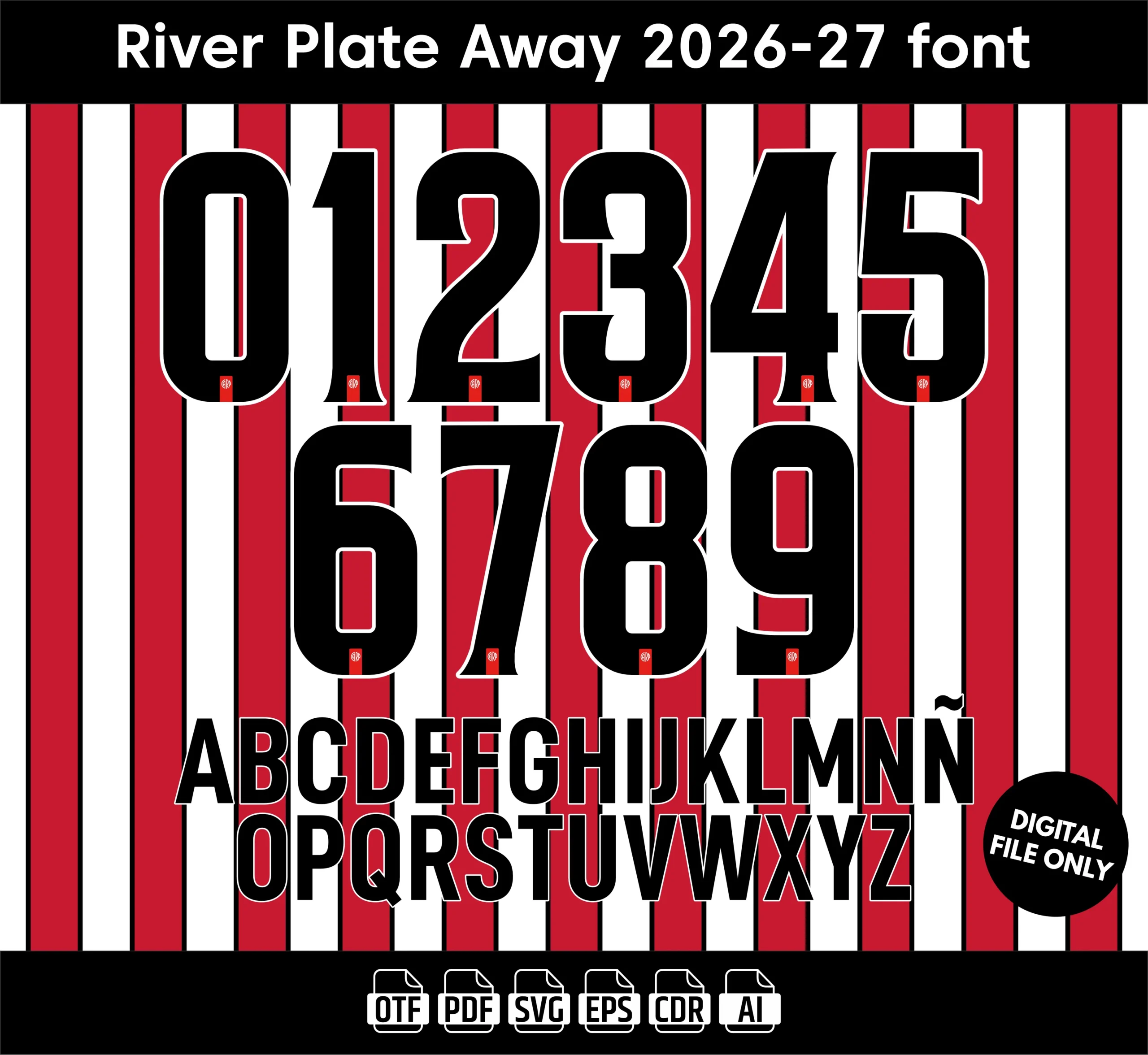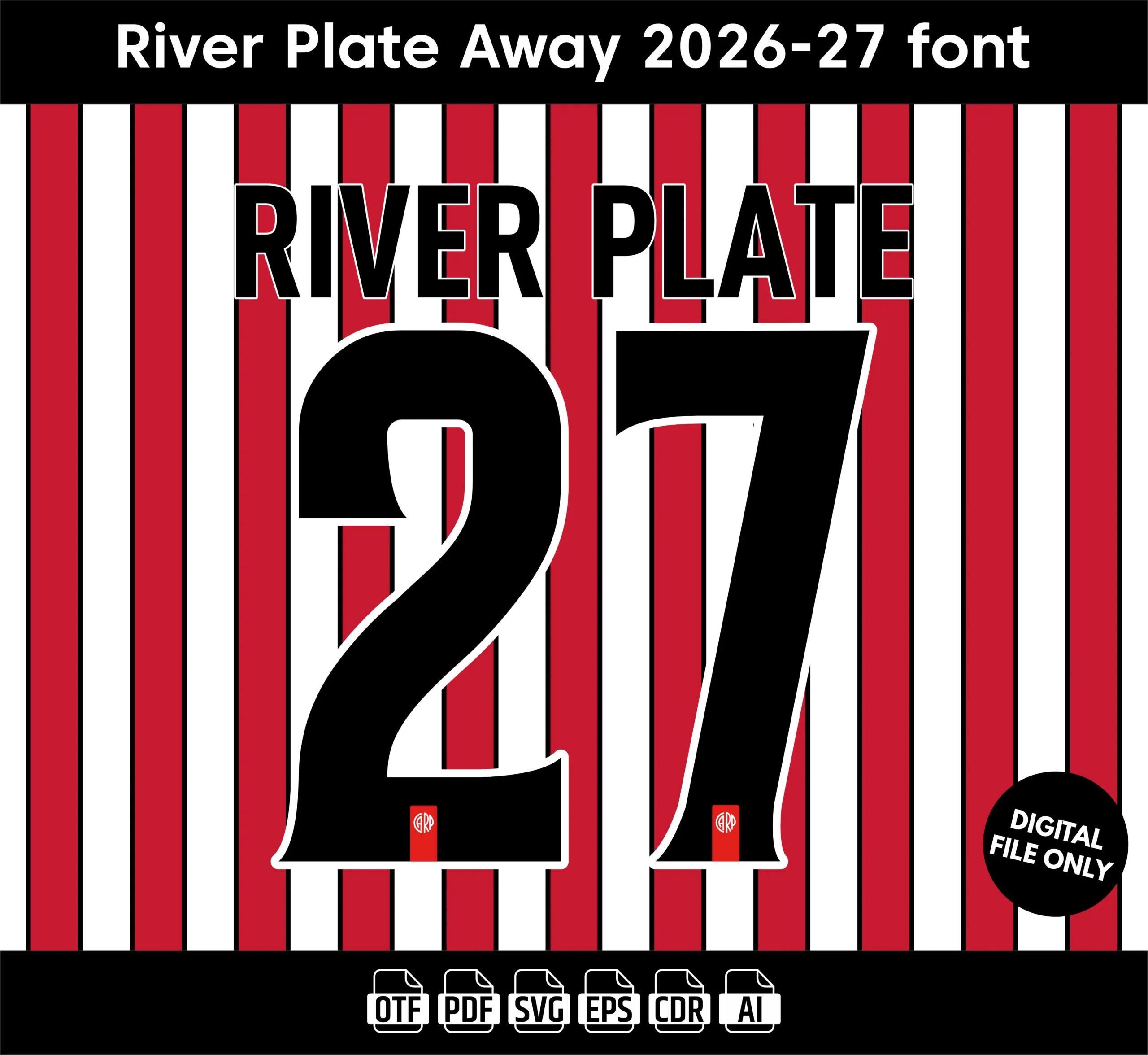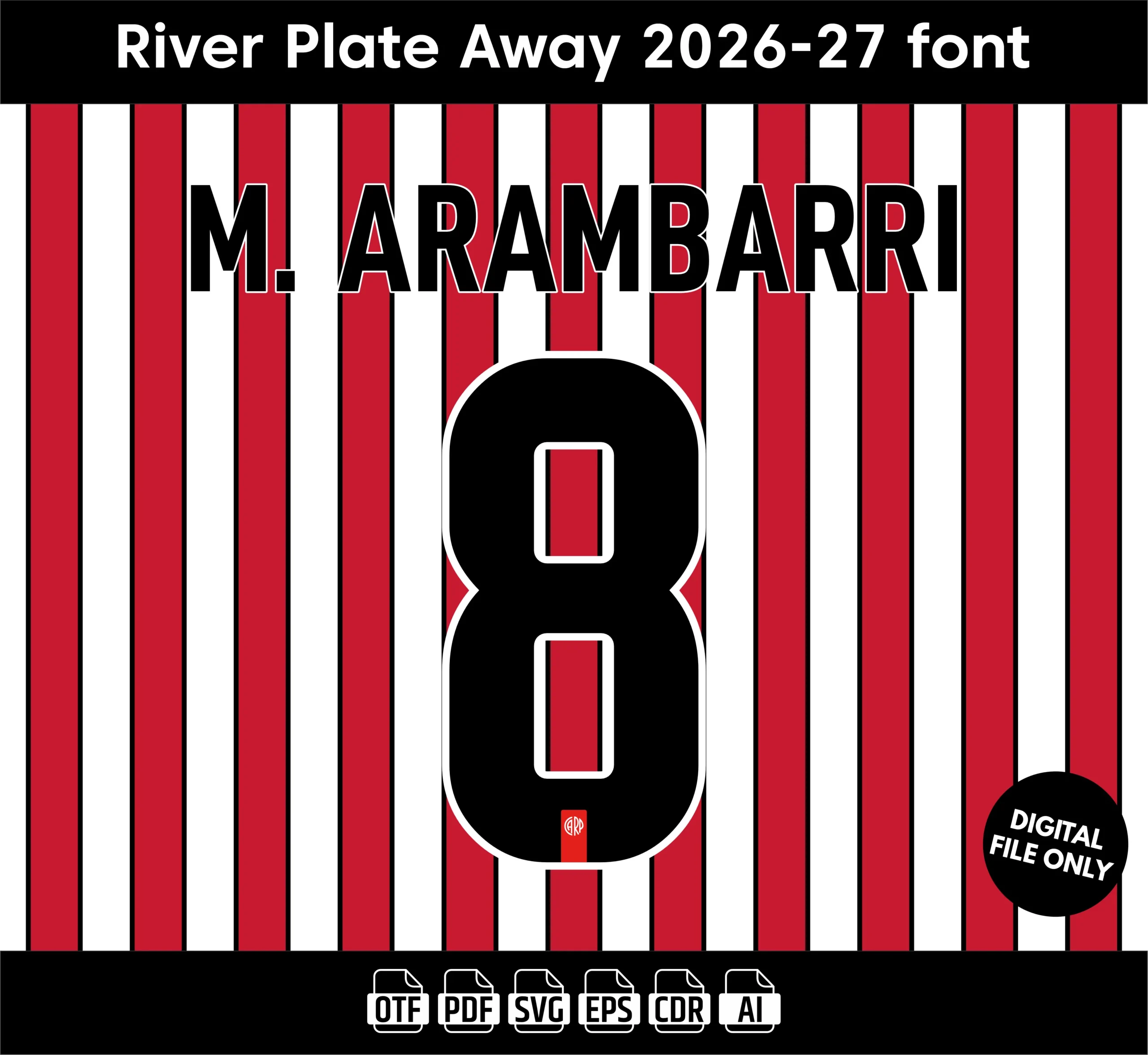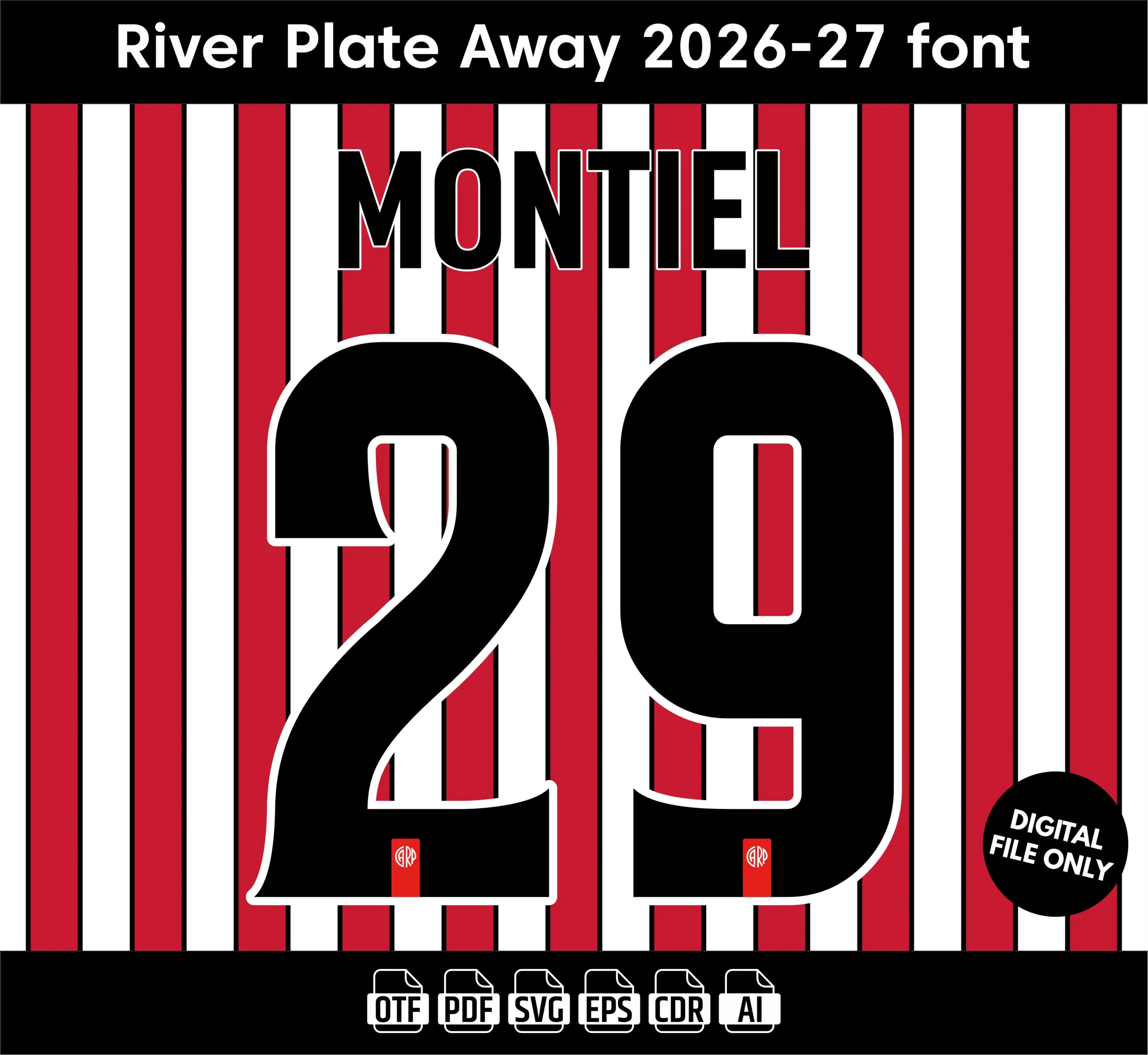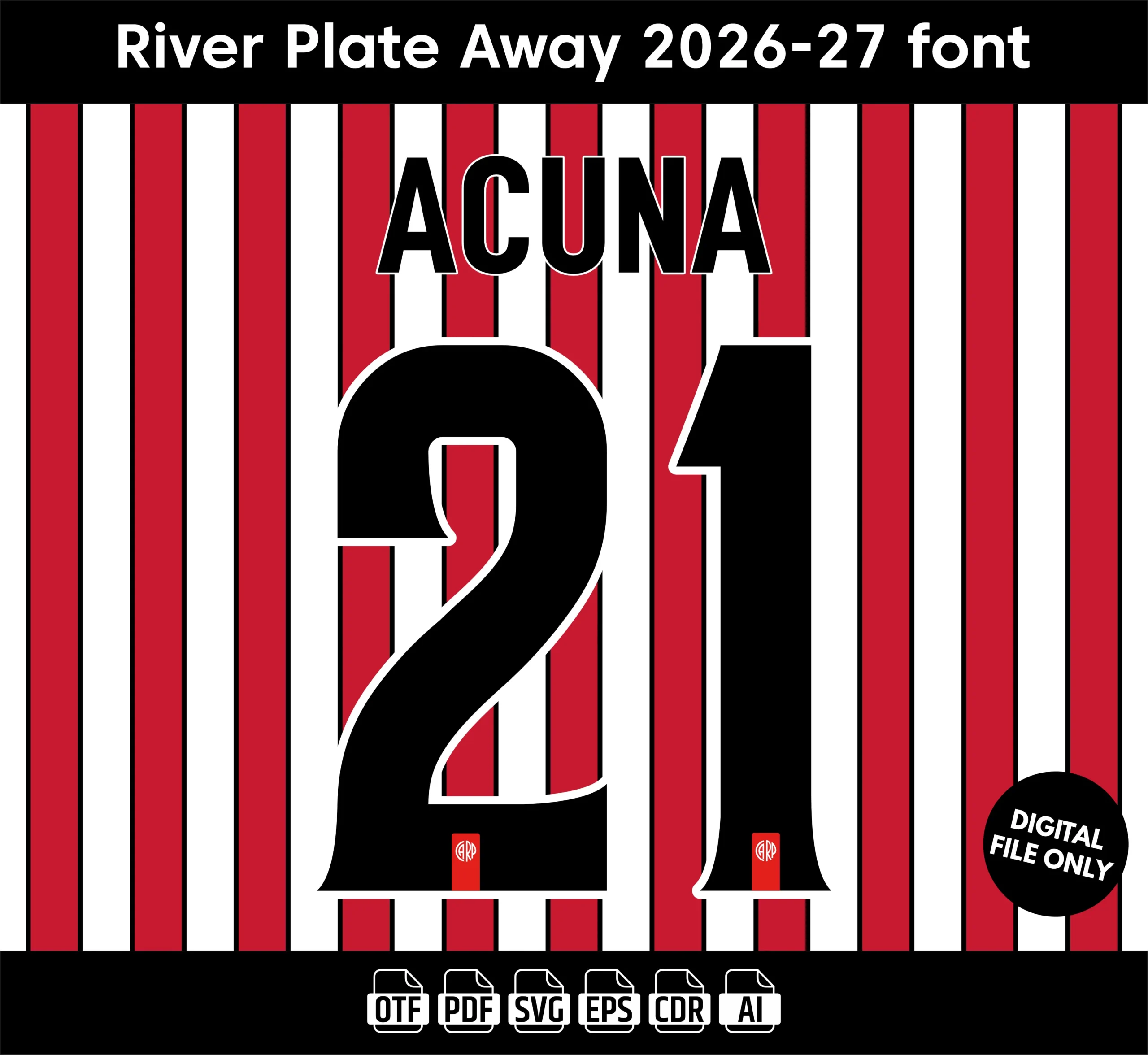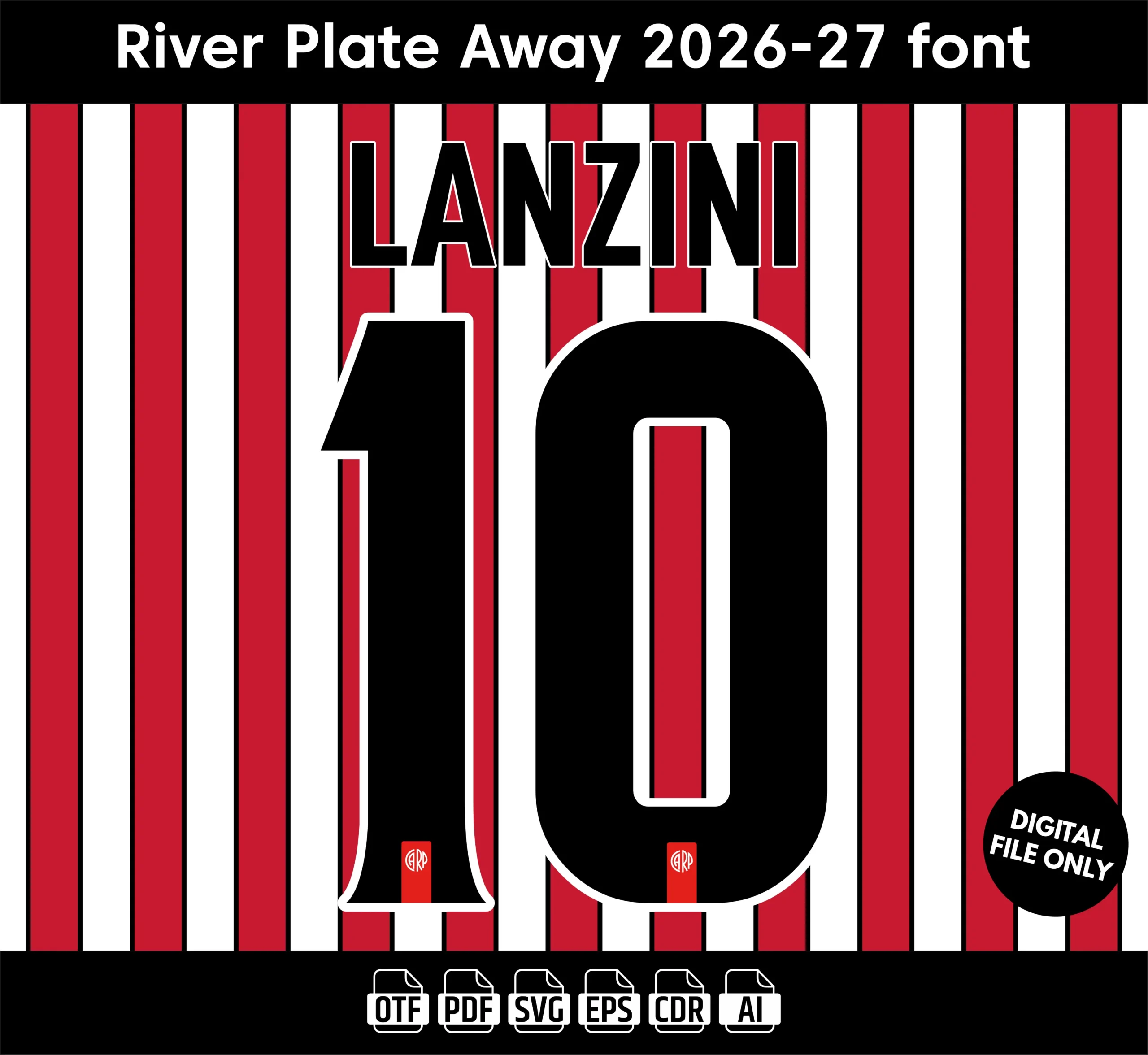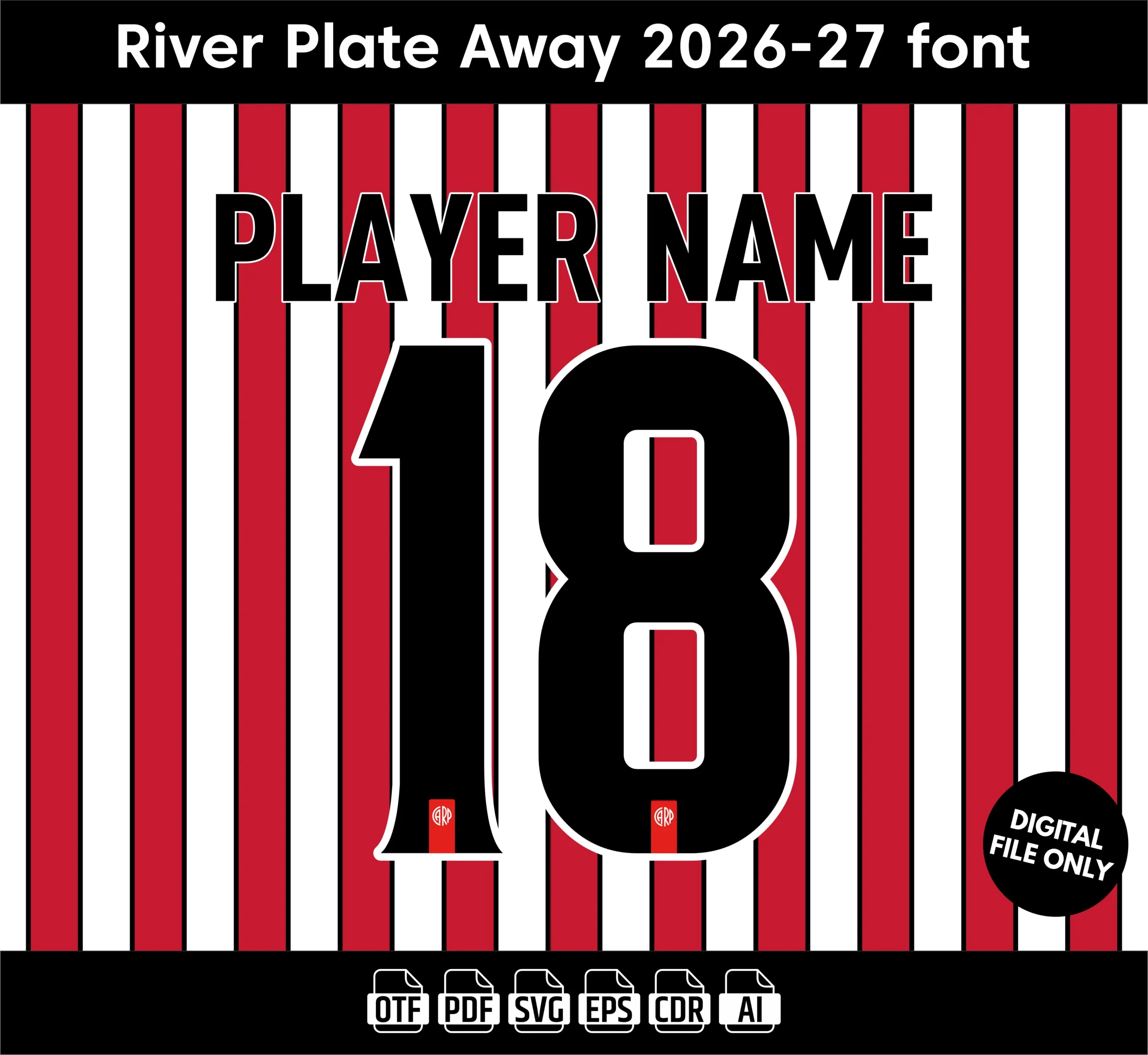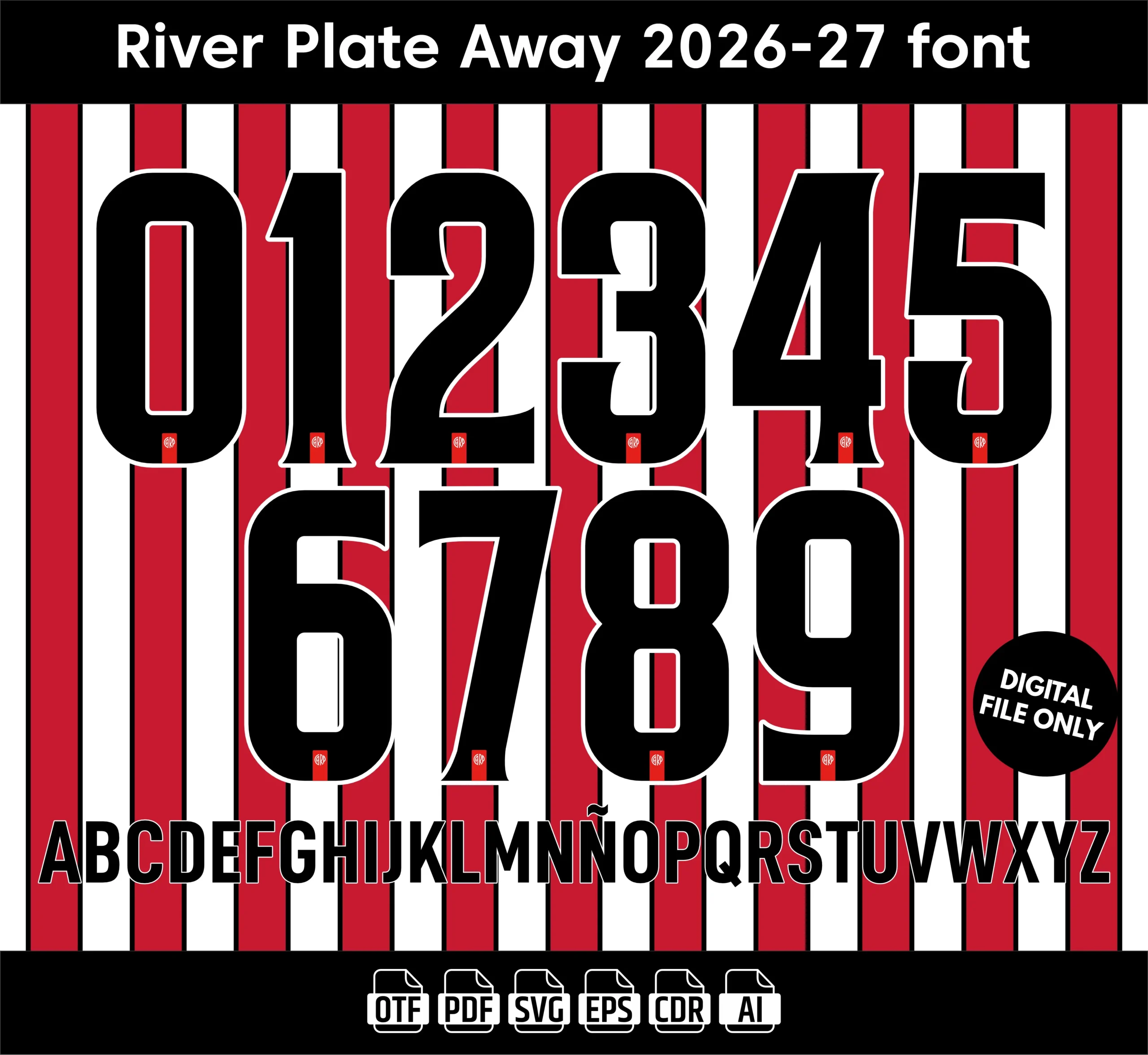
River Plate Away 2026-27 Font – Premium Football Jersey Typeface
Give your designs an authentic match-day look with the River Plate Away font, a jersey-style typeface built to match the bold, clean lettering seen on the club’s away kit design.
- Clean, authentic football-style typography
Built to mirror the lettering style seen on River Plate’s real away kit, this font gives your designs a sharp, professional, game-ready finish — whether you’re customizing a jersey, building a mockup, or creating branded sports content.